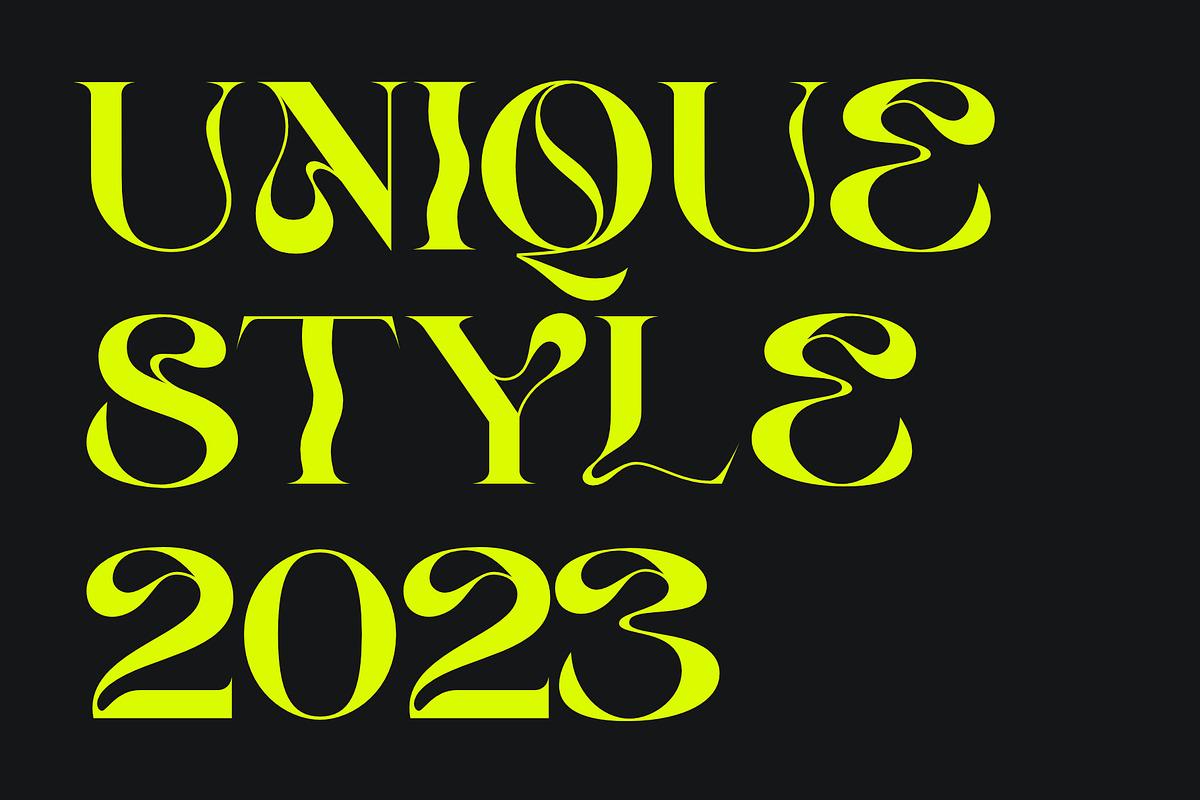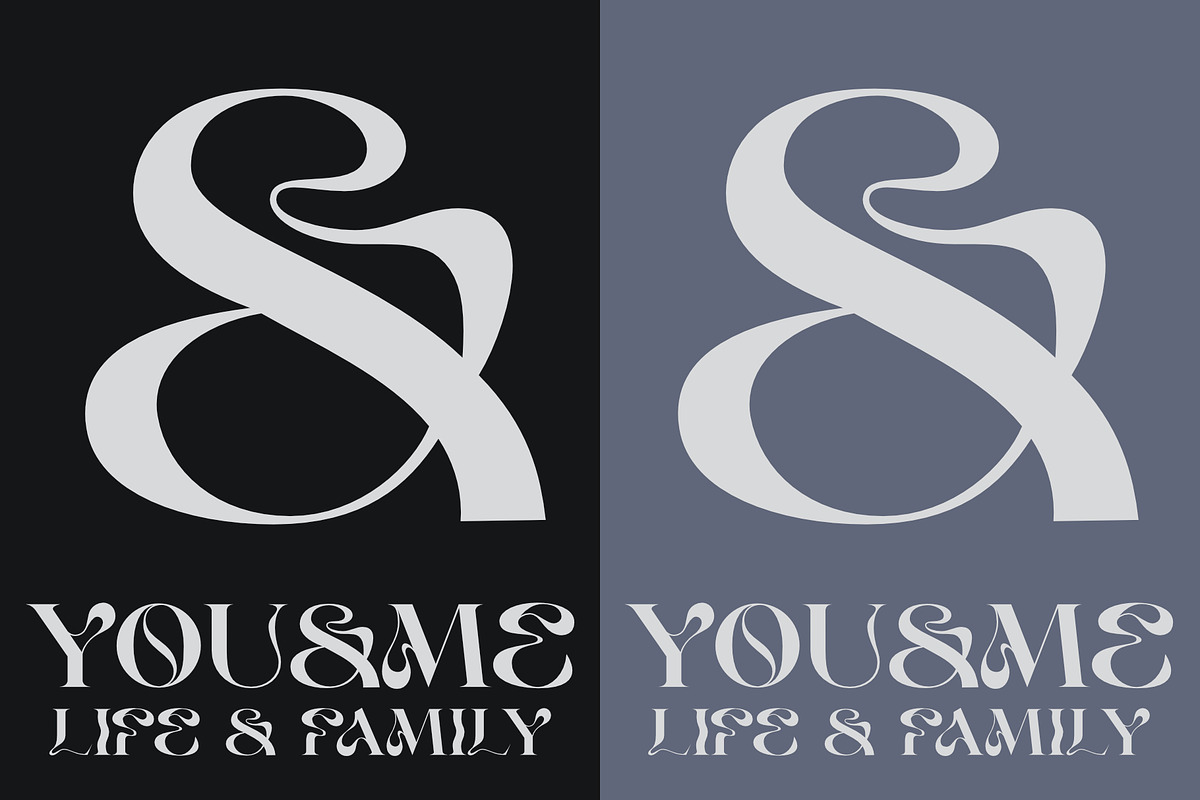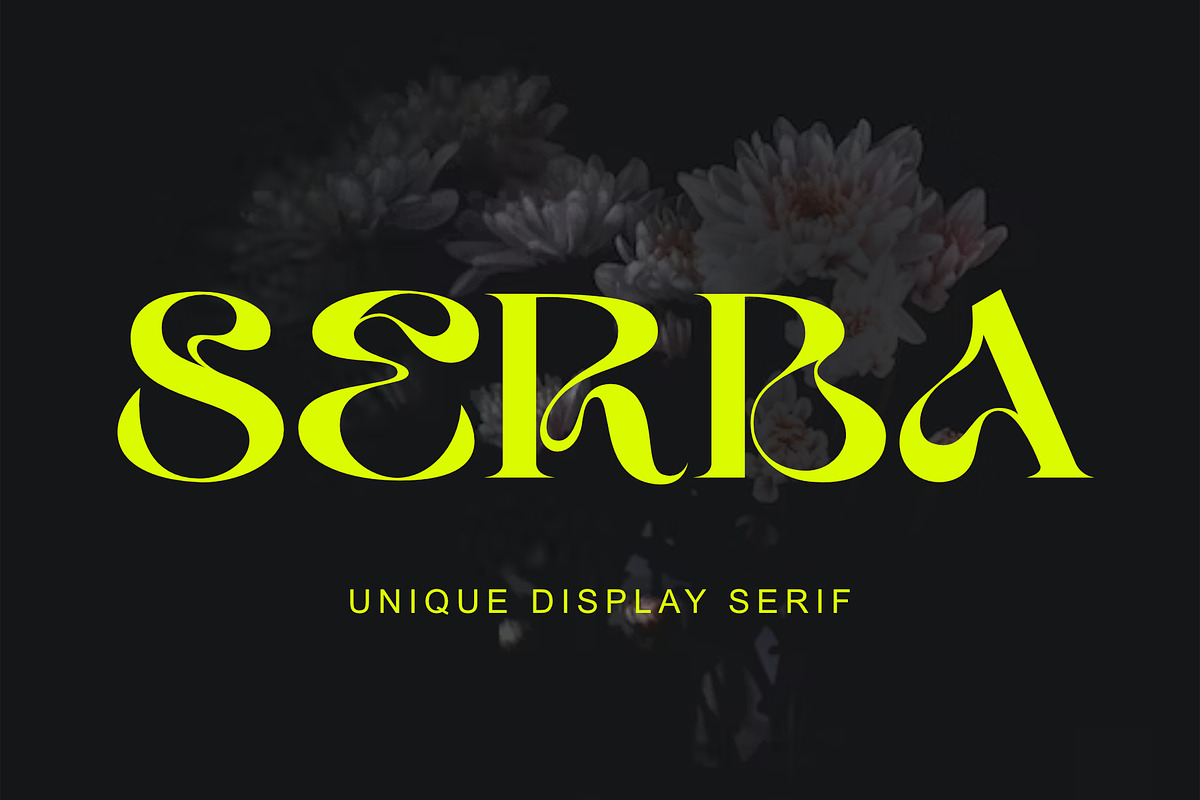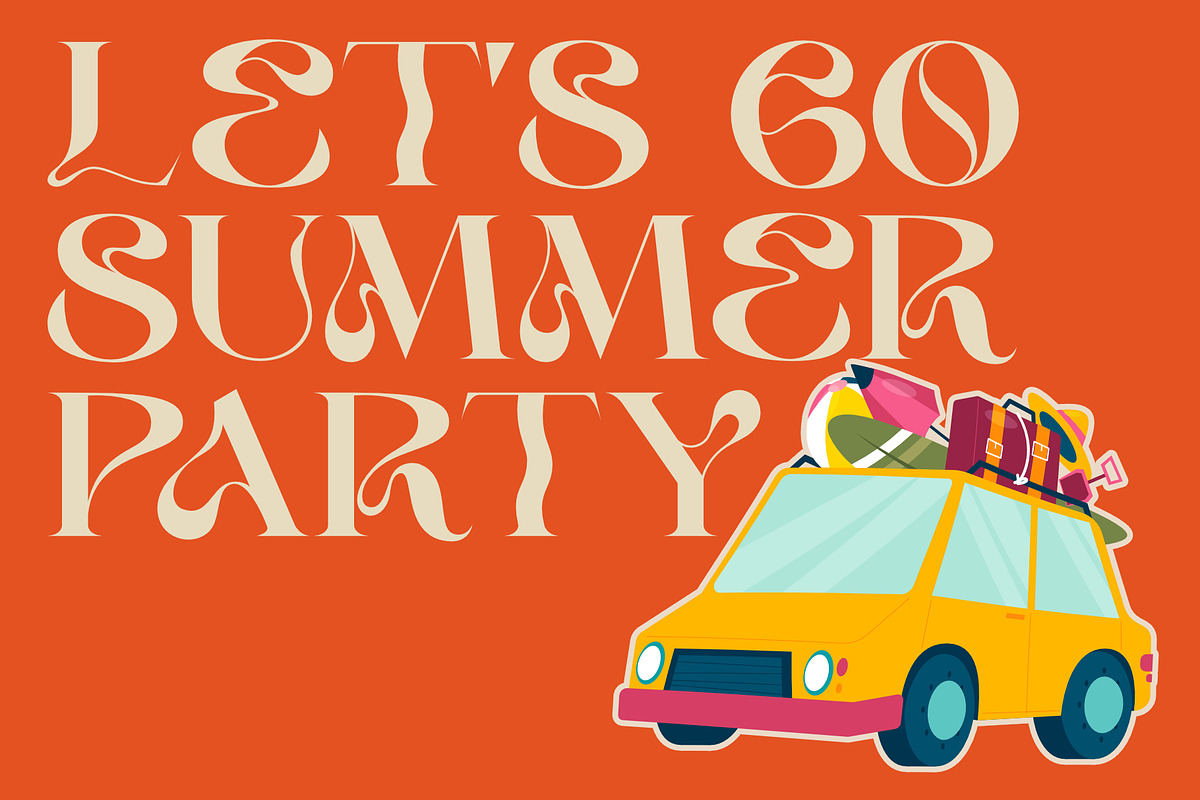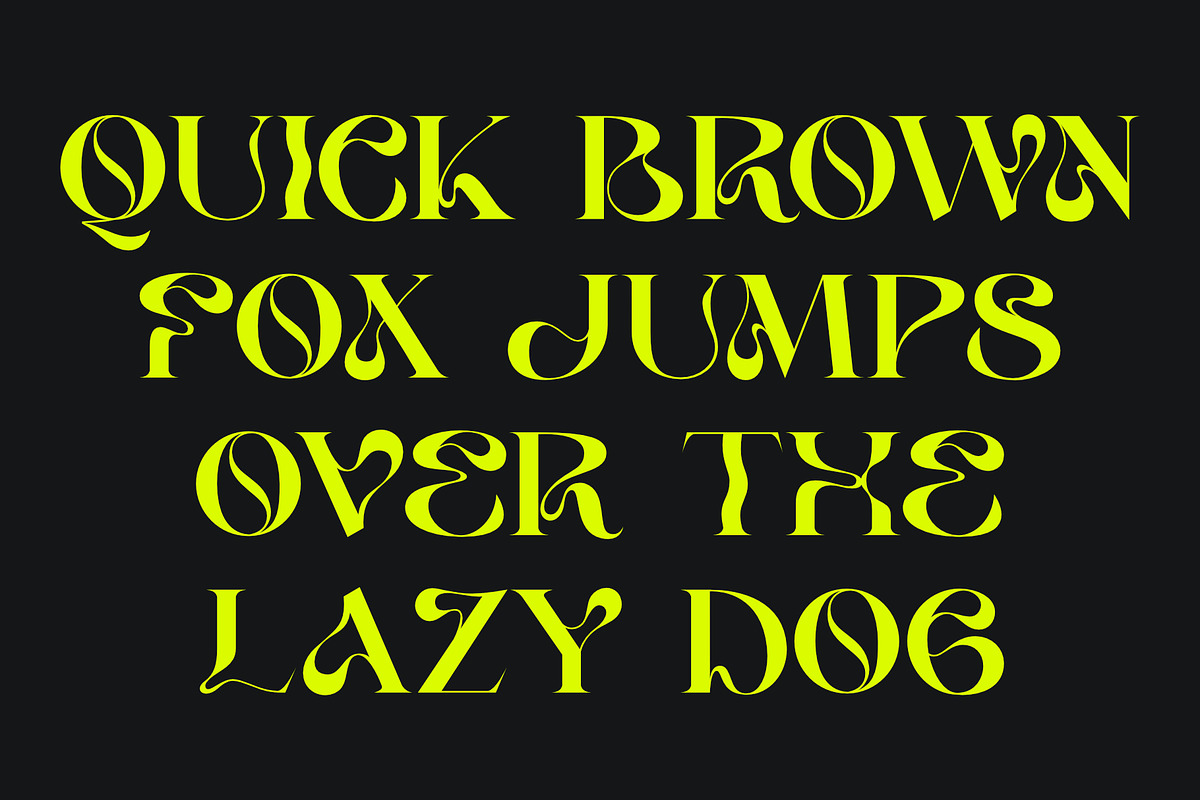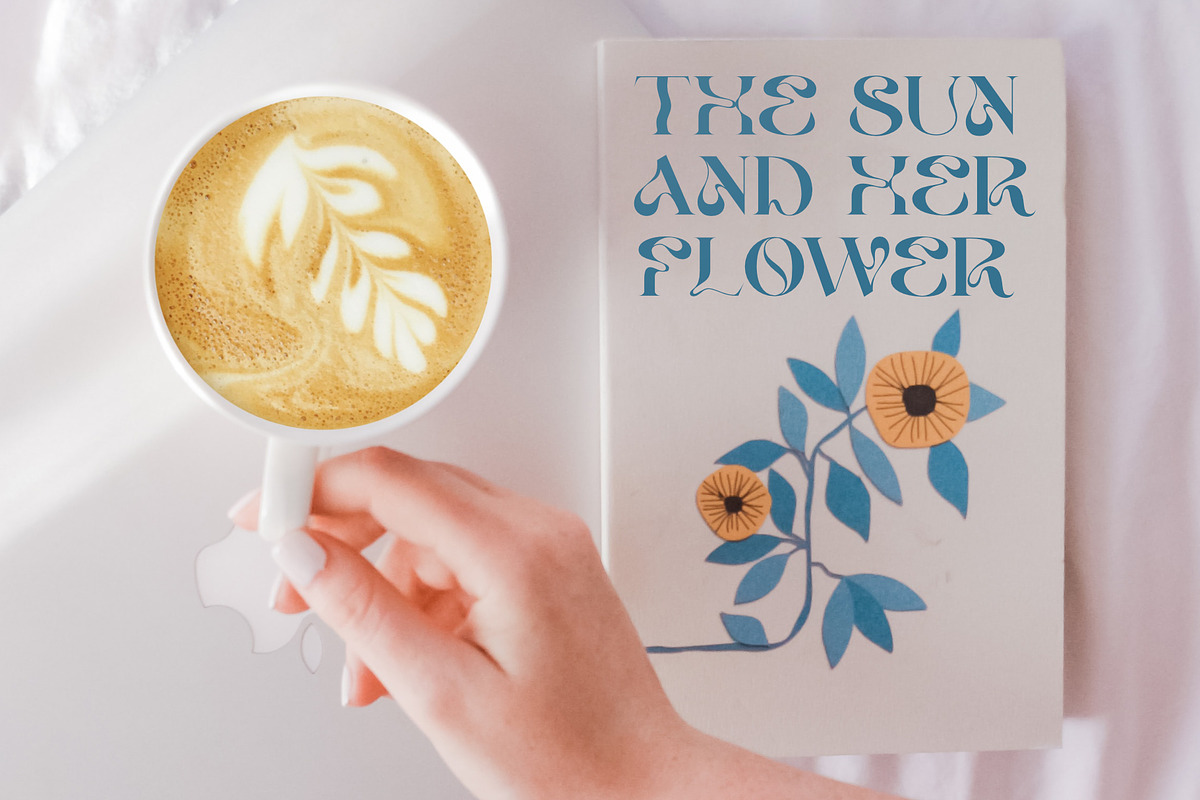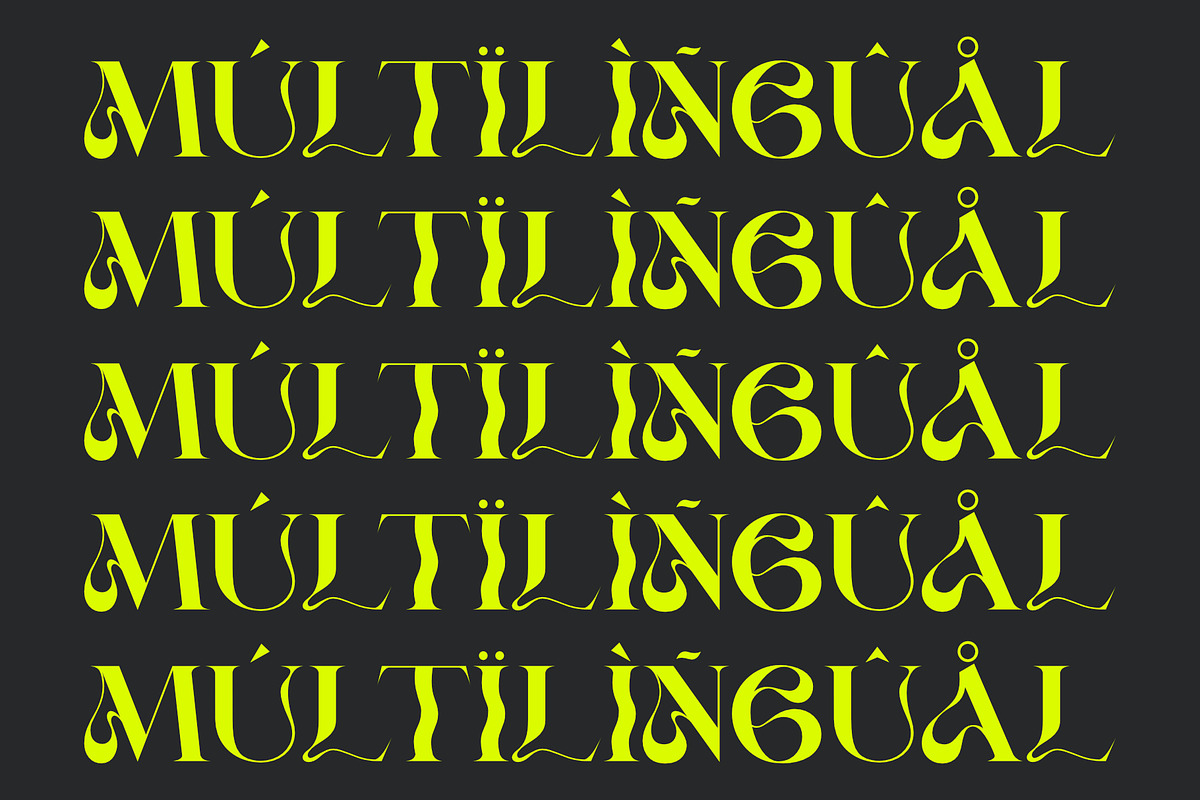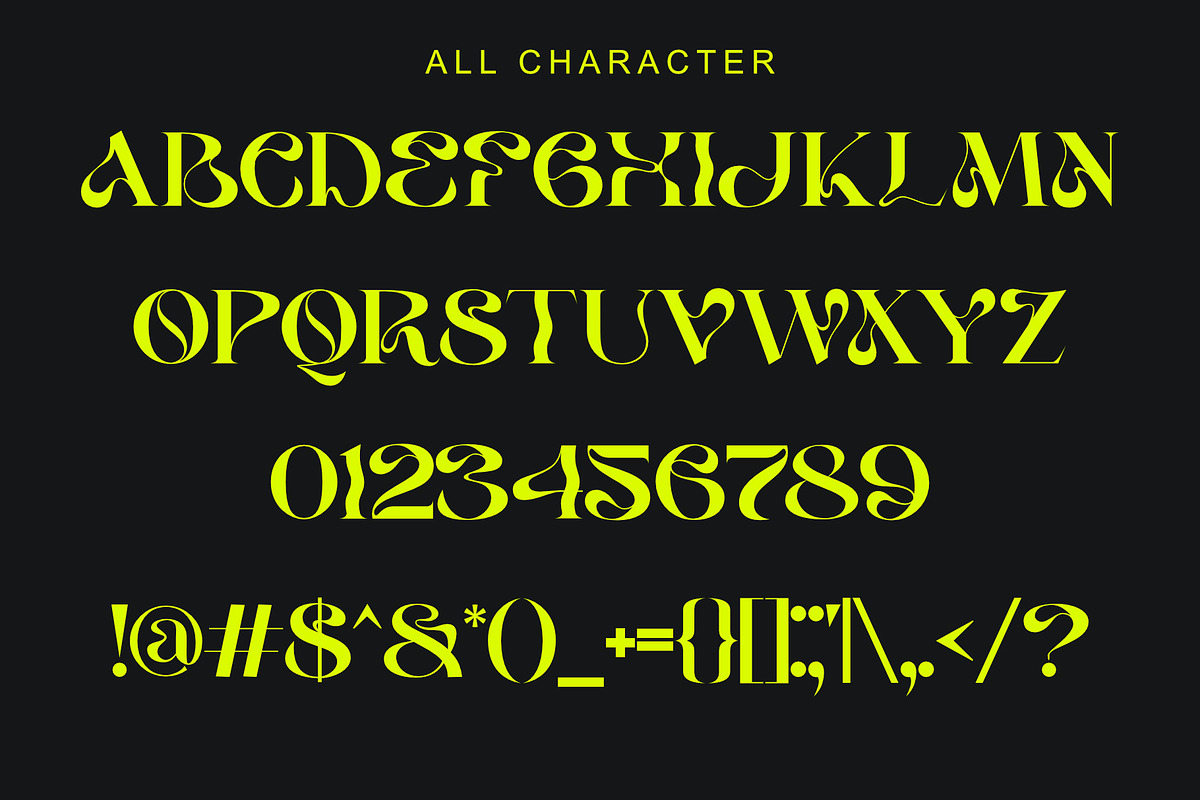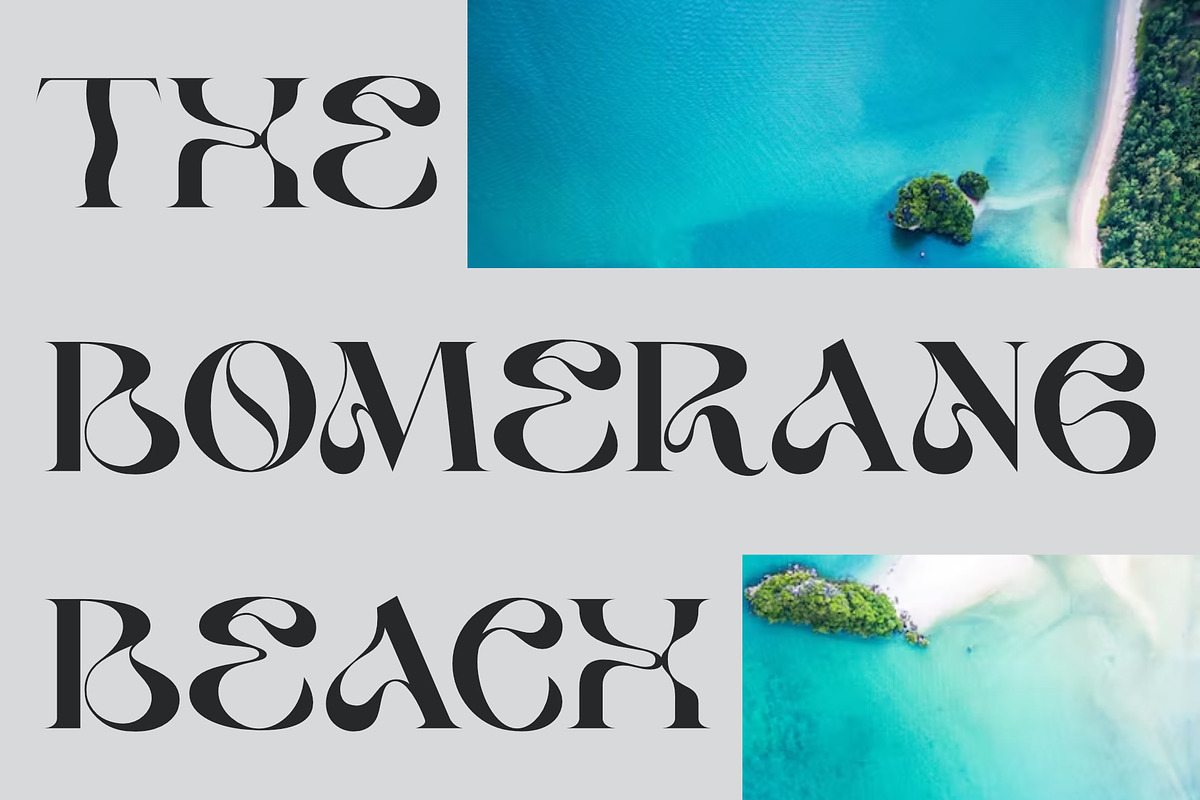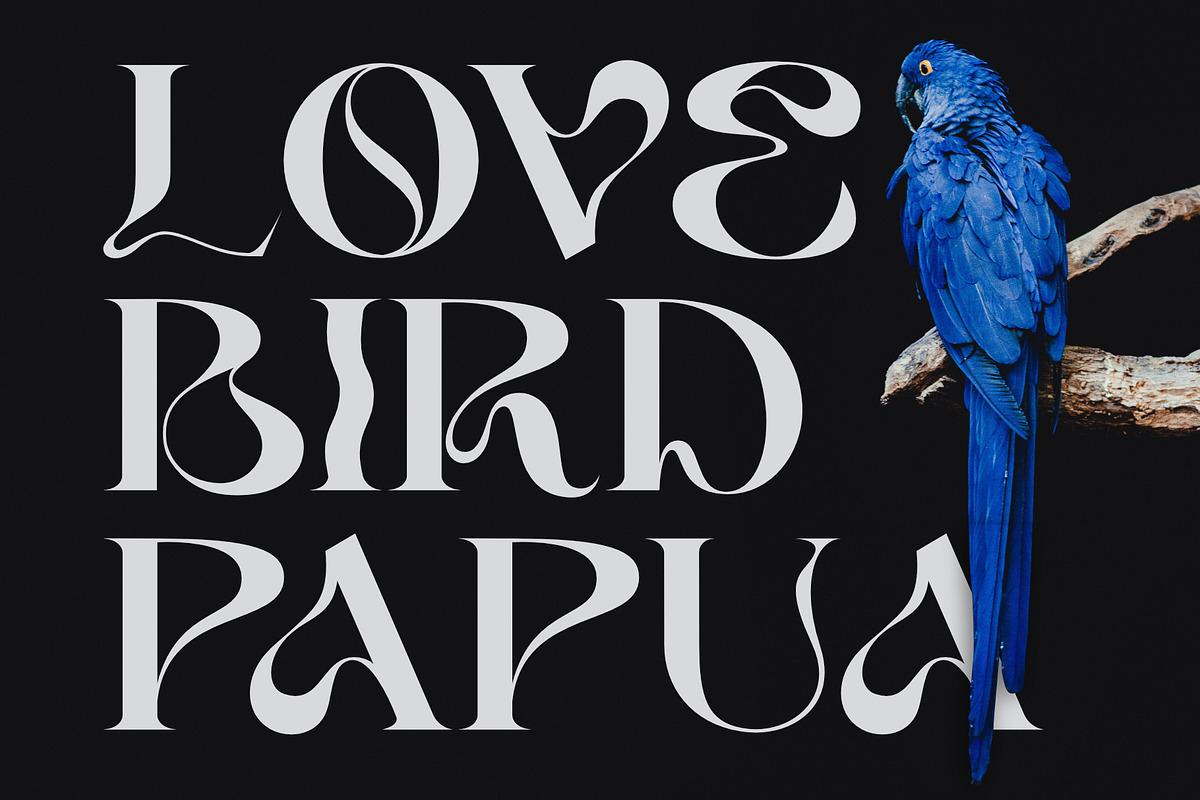
Serba
Serba is a fun, unique look serif display.
With a modern look, it looks perfect when paired with a conventional serif/sans serif. It can be used for mastheads, posters, business identity and just about anything else.
- All caps
- Multilingual character